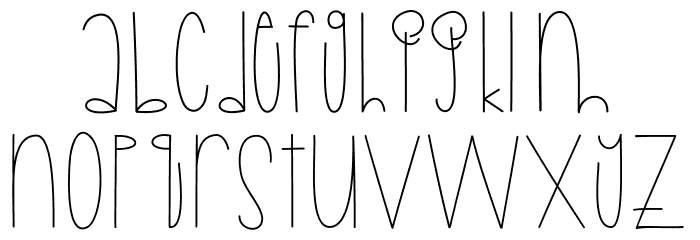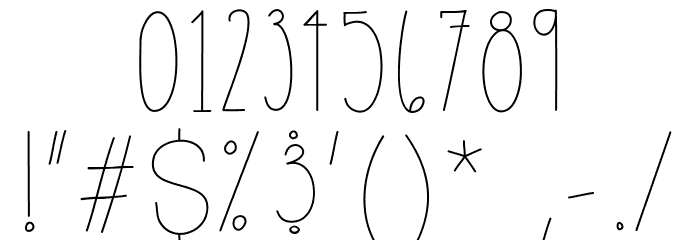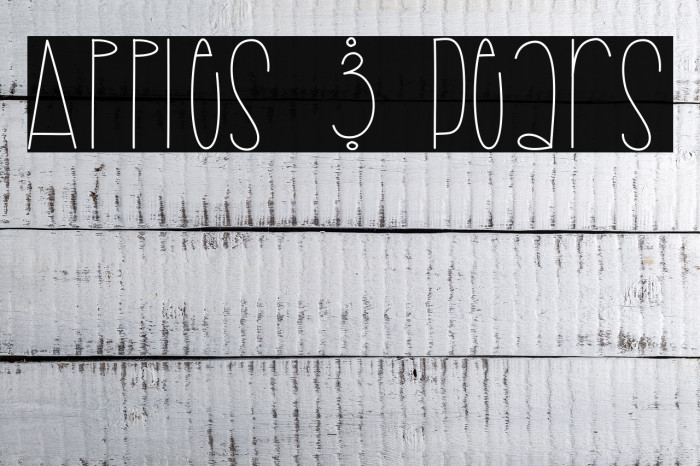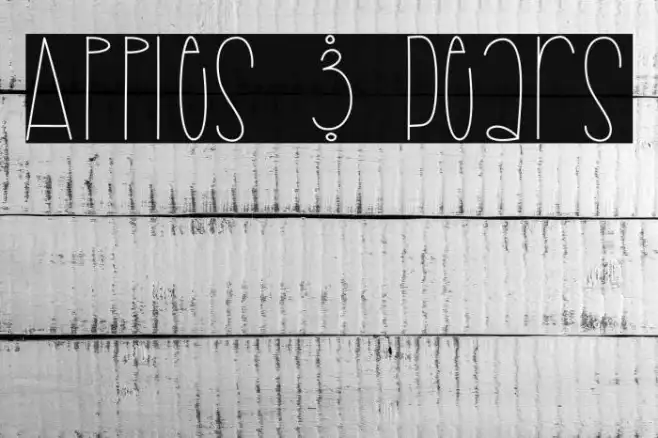
Apples & Pears Font
This font features a whimsical and playful design, characterized by its tall, narrow letters with a hand-drawn quality. The strokes are thin and consistent, giving it a light and airy feel. The uppercase letters are particularly elongated, with some characters like 'Q' and 'R' incorporating unique loops and curves that add to its charm. The lowercase letters maintain the same narrow structure, with subtle variations that enhance its quirky personality. Numbers and special characters follow the same stylistic approach, ensuring a cohesive look across all glyphs.
A whimsical, hand-drawn font with tall, narrow letters and playful loops.
- Proposed Projects: Ideal for children's book covers, playful branding, greeting cards, and creative posters.
- Overall Style: Playful